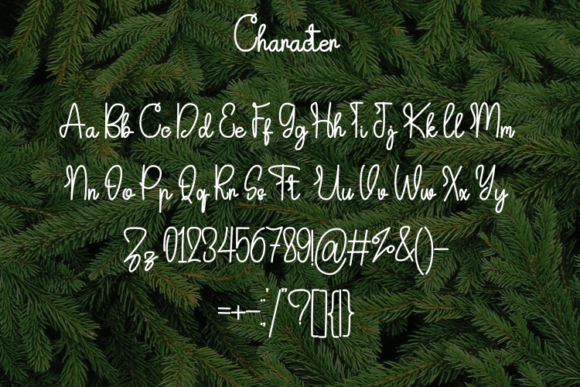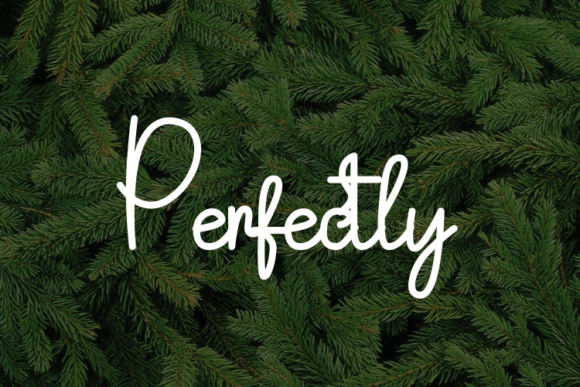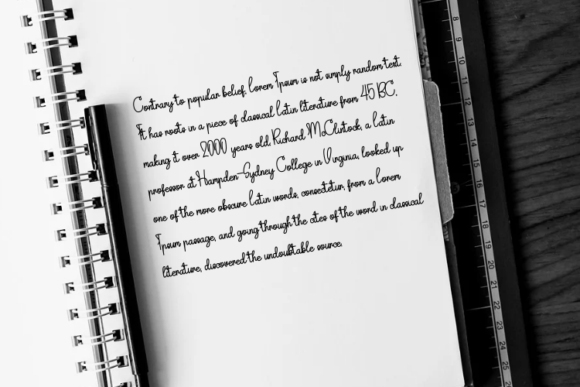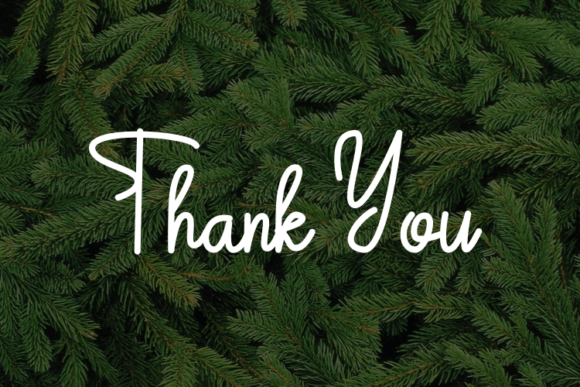
Introduction to Natal Chirstmas Font
As a designer, you’ve probably been there – staring at a blank canvas, searching for the perfect font to bring your creative project to life. The perfect font can make all the difference in elevating your design from ordinary to extraordinary. For those seeking a stylish and elegant touch, the Natal Chirstmas Font is a game-changer.
This beautiful script typeface boasts a simple yet modern look, making it perfect for a variety of design applications. From logos and book titles to fashion brands and magazines, the Natal Chirstmas Font is a versatile design resource that’s sure to impress. With its clean lines and sophisticated feel, it’s no wonder this font has become a favorite among designers looking to add a touch of luxury to their work.
Natal Chirstmas Font
- Unique Hand-Drawn Design: This font features a unique hand-drawn design, perfect for adding a personal touch to your creative project.
- High-Quality Typography: With its high-quality typography, this font is ideal for any design project that requires a professional look.
Honest Review: Natal Chirstmas Font
I recently stumbled upon the Natal Chirstmas Font, and I must say it’s a great addition to any designer’s toolkit. The font is perfect for creating festive and playful designs, especially for the holiday season. ✨
- Perfect for creating festive designs
However, I do have a few minor complaints: ⚠️ the font could benefit from more variation in style and size options. Additionally, the font’s design may not be suitable for more serious or corporate projects.
Overall, I think the Natal Chirstmas Font is a great design resource that’s perfect for designers looking to add some festive flair to their projects. While it may have some limitations, its high quality and free download make it a must-have for any design enthusiast.
The Natal Chirstmas Font is a high-quality design resource perfect for adding a festive touch to your creative projects. With a transparent background, this font can be easily incorporated into various design elements.
The Natal Chirstmas Font is ideal for:
- Holiday-themed social media graphics
- Christmas card designs
- Party invitations
- Business holiday newsletters
To get the most out of the Natal Chirstmas Font, experiment with different font sizes, colors, and combinations. You can also pair it with other design elements, such as images or graphics, to create a unique and eye-catching design.